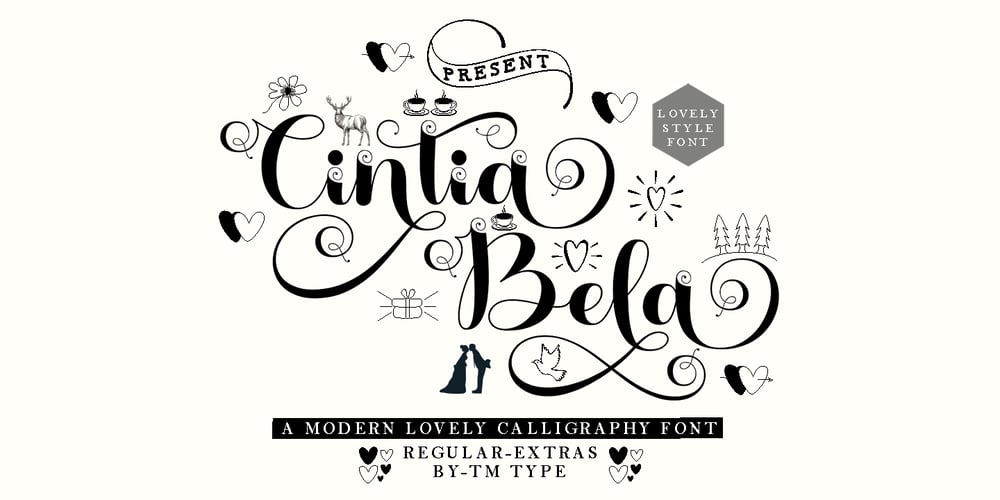
Cintia Bela Font Family was designed by Teuku Bustami and published by TM Type. Cintia Bela contains 1 styles and family package options. Cintia Bela is a smooth, elegant, and flowing calligraphy font perfect for your favorite projects. Fall in love with its completely different and timeless style, and use it to create spectacular designs!This font is PUA encoded, which means you can access all the glyphs and sweeps with ease!